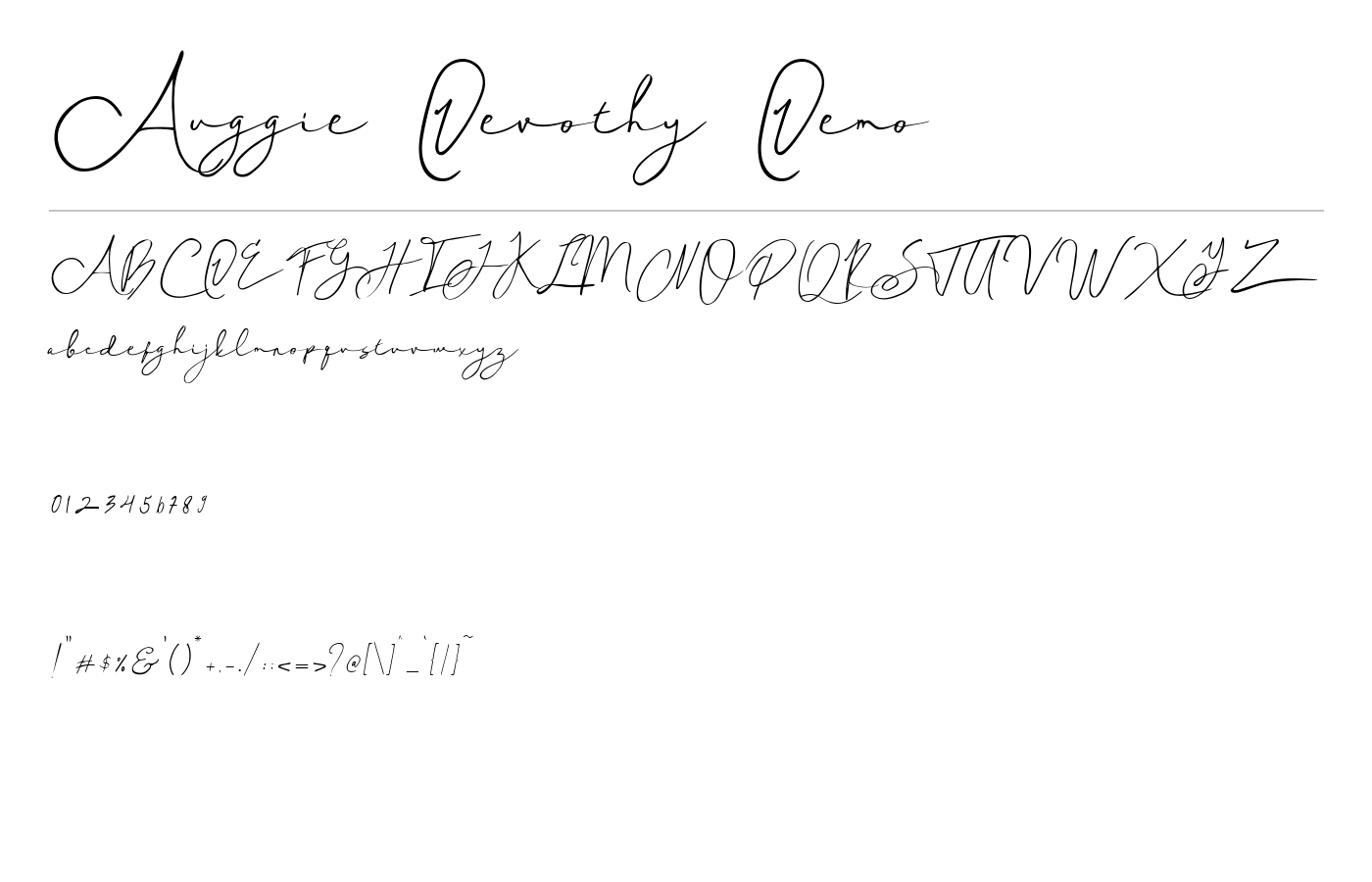
Auggie Devothy Demo is an elegant, delicate script font characterized by its thin, flowing strokes and high contrast between slender lines and subtle curves. Its handwritten style conveys a graceful and personal touch, making it ideal for invitations, branding, and other designs seeking a refined, sophisticated look. This font works best for expressive headlines or decorative accents where elegance and a soft, artistic mood are desired.